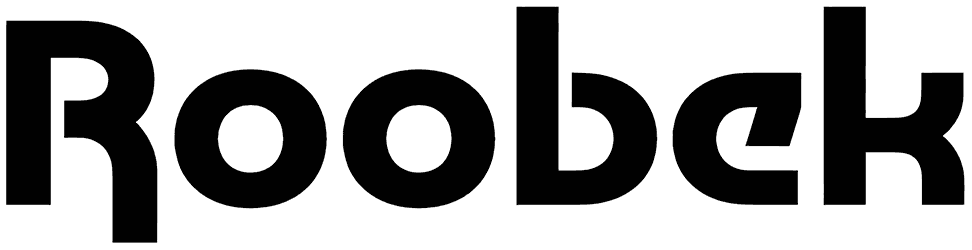
Roobek Font
When you use this font to adorn your words, they will convey a modern and professional vibe. The Roobek font consists of bold and distinct letters that can be matched with different topics. Let’s apply this basic font to your new projects namely a digital services company logo, and enjoy the feedback.